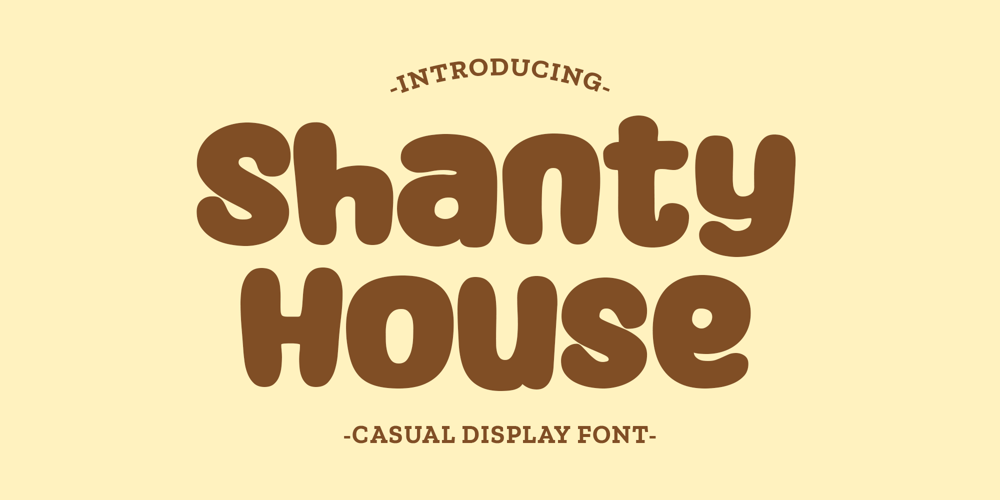
Shanty House Font Family was designed by Ali Hamidi and published by Ali Hamidi. Shanty House contains 1 styles and family package options. Shanty House is a chunky fun and whimsical handwritten font. A little bit quirky, this font looks incredibly adept in a wide variety of contexts!